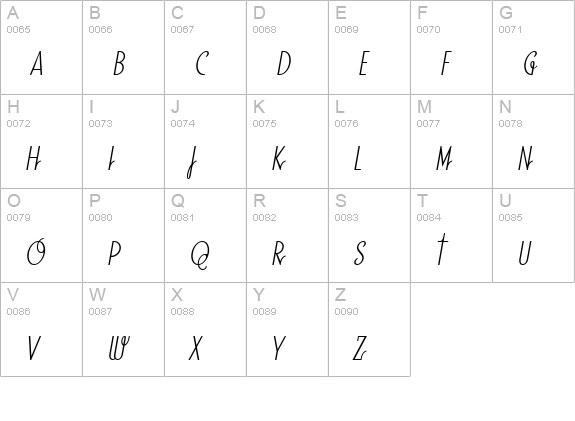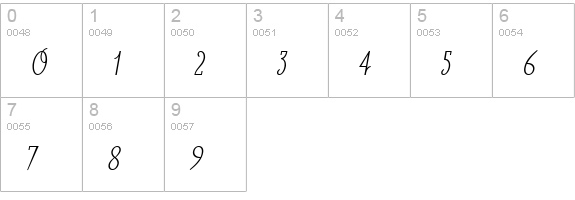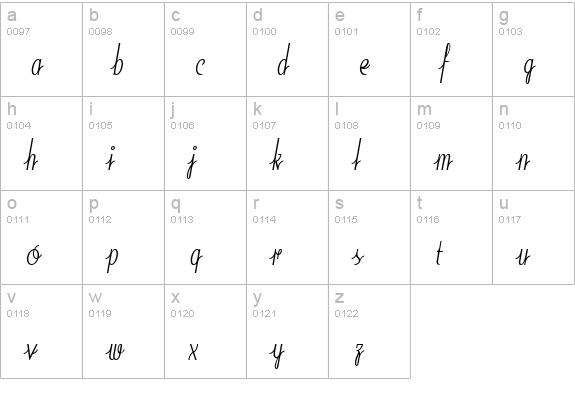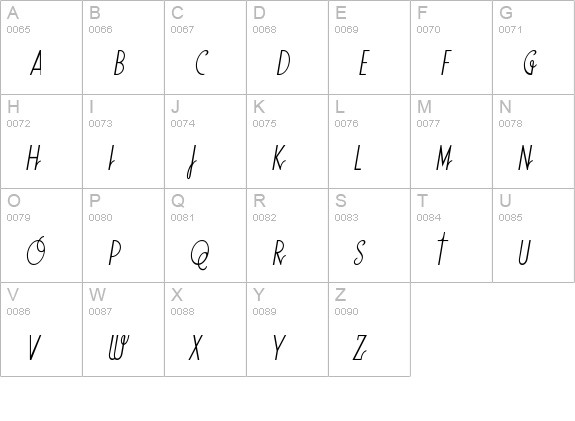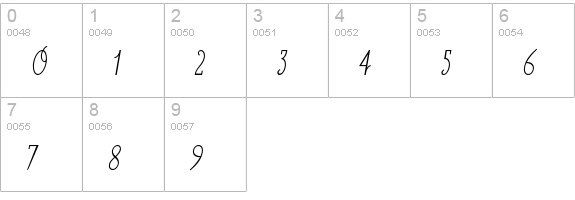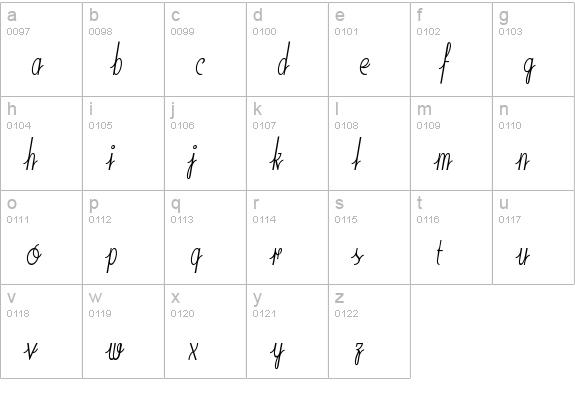
SodaScriptLight Regular Font Details
SodaScriptLight Regular is the standard, neutral variant in the SodaScriptLight typeface family \xE2\x80\x94 well suited to general body text, paragraphs, and standard typographic work.
Introducing SodaScriptLight Regular, a font that effortlessly combines elegance with a touch of playfulness. This font is perfect for adding a unique and charming touch to any design project, whether it's a logo, invitation, or social media post. SodaScriptLight Regular features beautifully crafted letterforms with a subtle hand-drawn quality. Its clean and flowing lines create a sense of effortless style, making it suitable for both formal and casual designs. The slightly rounded edges add a friendly and approachable feel, making it a versatile choice for a wide range of applications. One of the best things about SodaScriptLight Regular is that it is free! That's right, you can freely download this font without any cost at FontsMarket.com. This means that you can add this stunning typeface to your font library without breaking the bank. So why wait? Enhance your designs with the captivating charm of SodaScriptLight Regular. Download it for free today at FontsMarket.com and let your creativity shine.